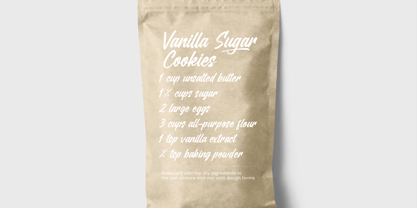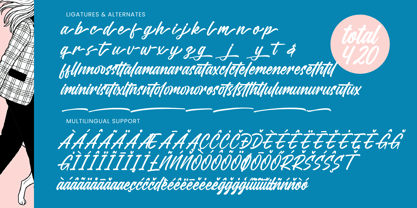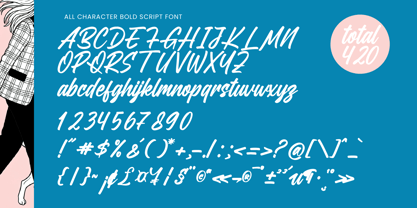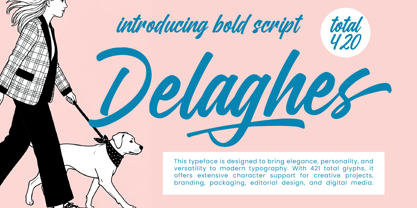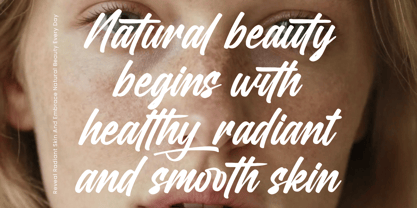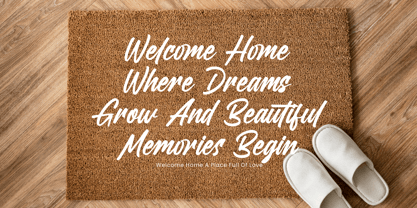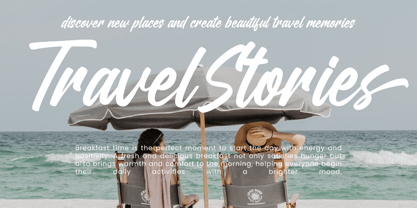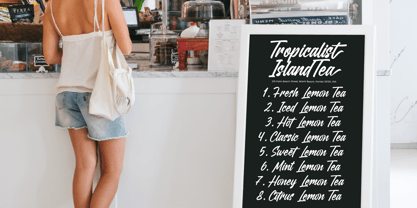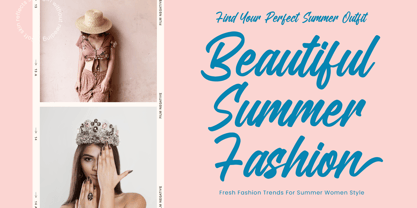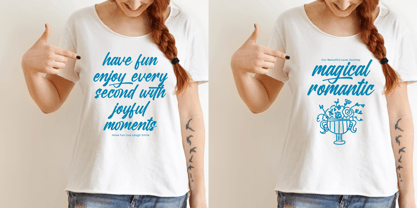
Delaghes
The Delaghes Font Family was designed by Heru Utama Putra and published by Letterena Studios. Delaghes contains 2 styles and family package options.
Elevate your creative vision with a typeface that embodies both power and grace through its expressive, hand-drawn architecture. Delaghes - Bold Script Font offers a contemporary aesthetic that combines heavy, confident strokes with fluid transitions to create an undeniable visual impact. This font is specifically crafted for designers who need a dynamic personality that commands attention while maintaining a sense of organic elegance and professional polish. Mastering the balance between modern sophistication and artisanal flair, this typeface is the ultimate choice for high-stakes commercial design. Delaghes - Bold Script Font is perfect for luxury branding, premium packaging, and editorial design where a signature-style look is required to establish brand identity. Whether it is used for bold headlines, sophisticated logo marks, or high-end lifestyle magazines, its striking silhouettes ensure that your project stands out in a competitive marketplace.